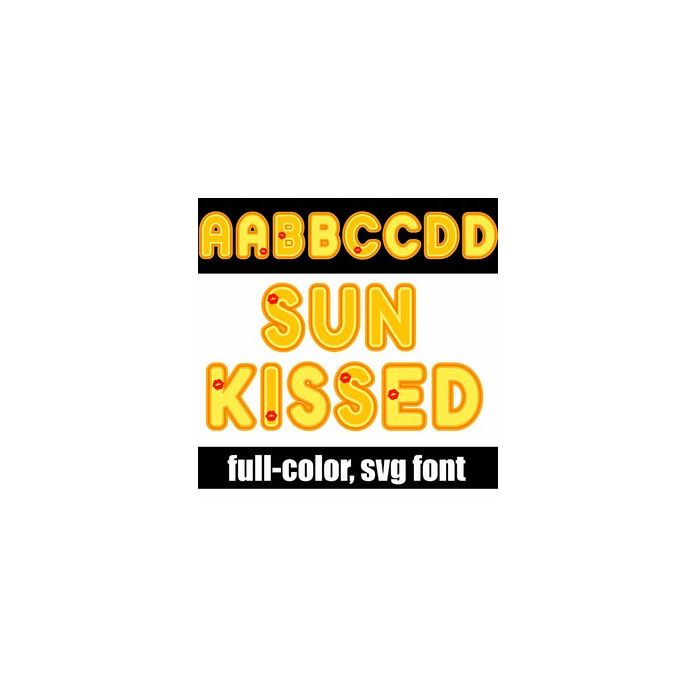
This full color font is a bright, sunny font in yellows with bright kisses on several letters. There is an alt case w/ additional colors you can access through your system or Silhouette's glyph map.